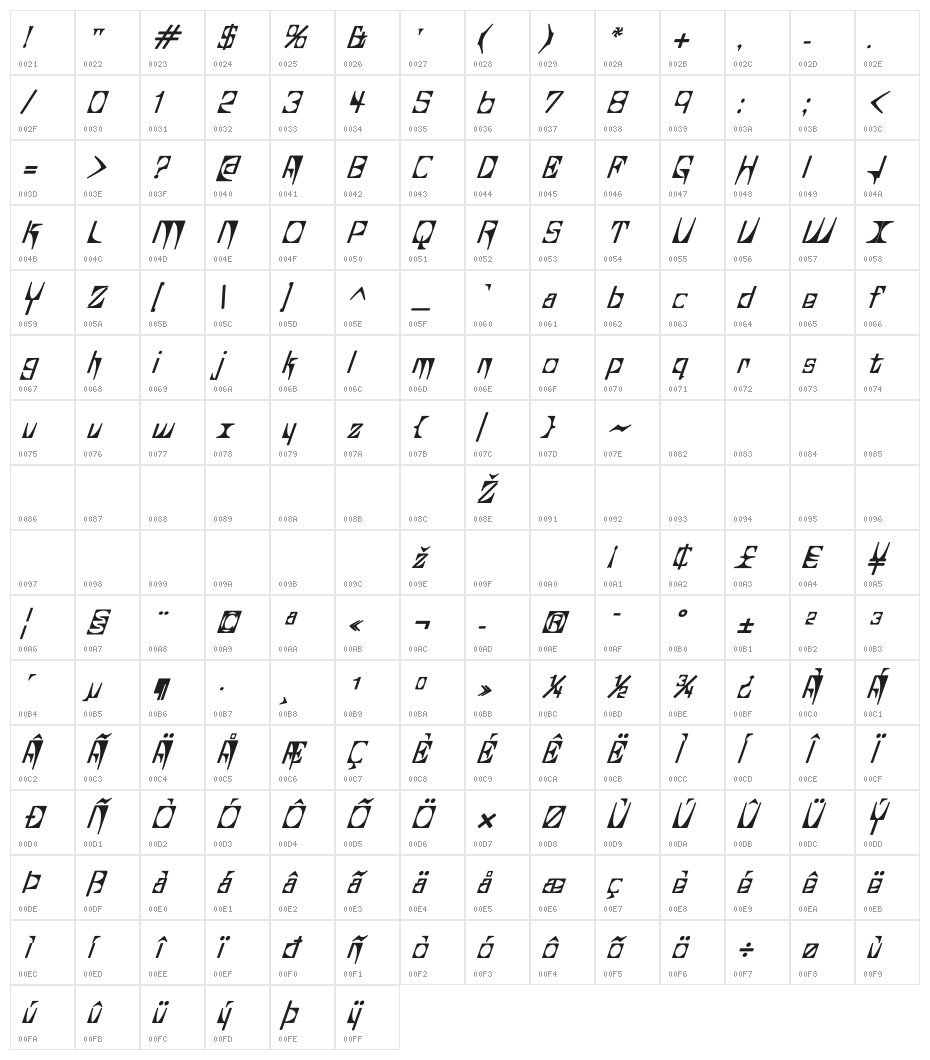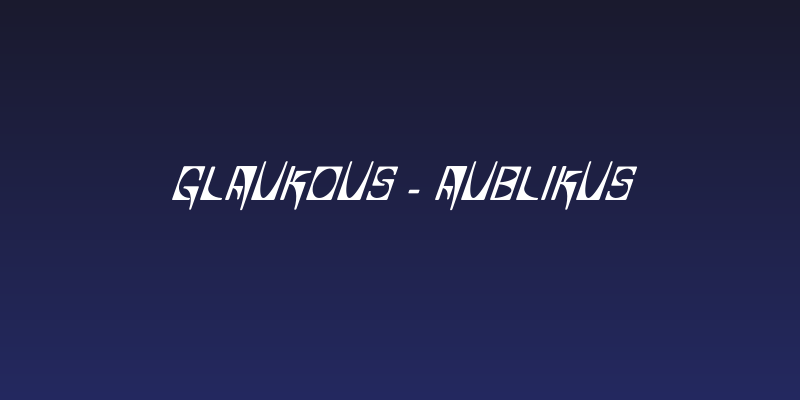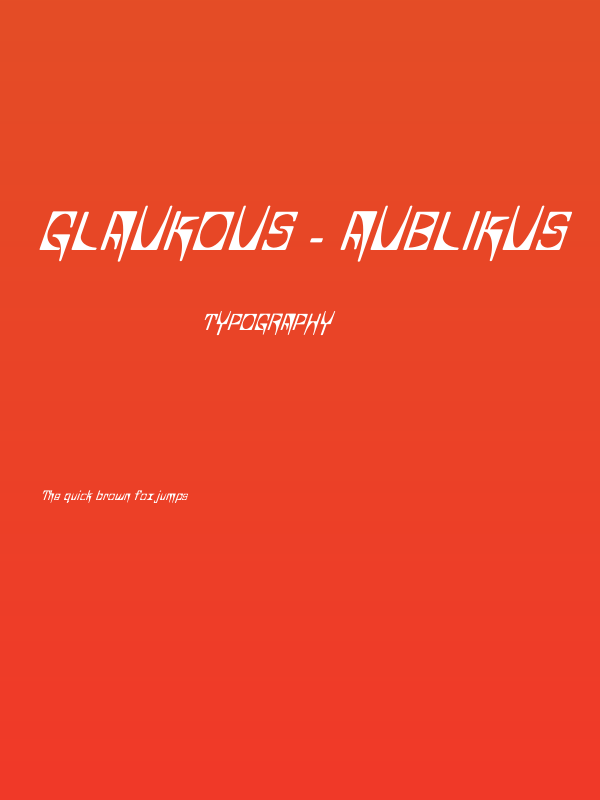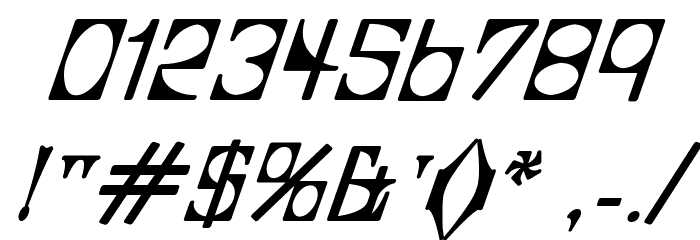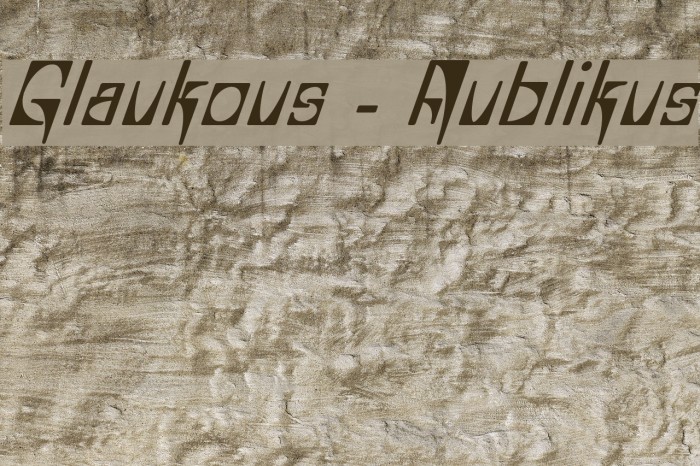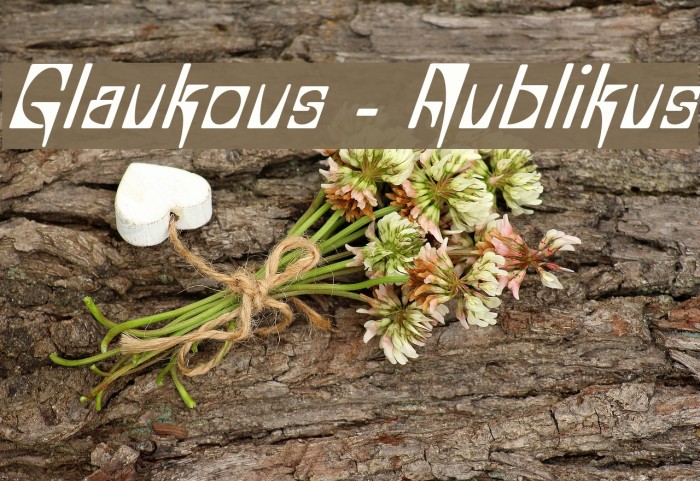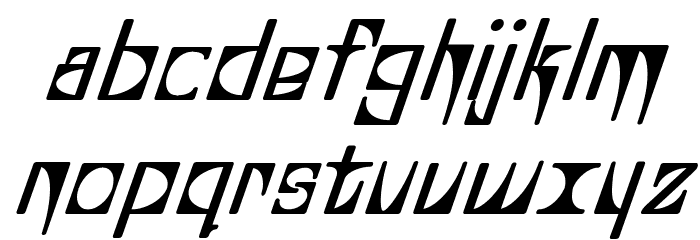
Glaukous - Aublikus Font
Glaukous - Aublikus Description
This font features a unique and dynamic design with sharp, angular lines and a futuristic aesthetic. The characters are slightly slanted, giving a sense of motion and energy. The uppercase letters are bold and commanding, while the lowercase letters maintain the same angular style, providing consistency across the typeface. Numbers and special characters are designed to match the overall theme, ensuring a cohesive look. The font's distinct style makes it ideal for projects that require a modern and edgy appearance.
| Overall Style | Futuristic, Edgy |
| Proposed Projects | Ideal for sci-fi themed designs, video game titles, movie posters, and branding for tech companies. |